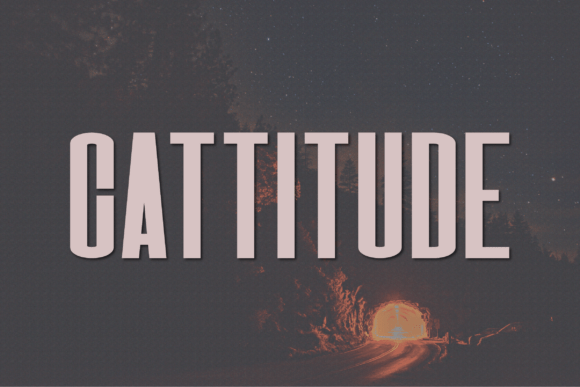
Cattitude Font: Elevate Your Design with a Modern, Classy Sans Serif Typeface
In the world of typography, fonts play a crucial role in conveying messages, expressing emotions, and creating visual identities. When it comes to choosing the right font for your design project, the options can be overwhelming. However, if you’re looking for a modern, classy sans serif typeface that exudes elegance and sophistication, look no further than Cattitude Font. In this article, we’ll introduce you to Cattitude, a versatile font that’s perfect for a wide range of design applications.
What is Cattitude Font?
Cattitude Font is a modern sans serif typeface that features upper characters, numbers 0-9, and a range of punctuation and symbols. Its clean lines, precise curves, and balanced proportions make it an ideal choice for designers seeking a font that’s both stylish and legible. Whether you’re working on a logo, wedding invitation, quote, advertisement, or magazine, Cattitude Font is the perfect companion to help you achieve your creative vision.
Key Features of Cattitude Font
- Modern Sans Serif Design: Cattitude Font boasts a sleek, contemporary design that’s perfect for projects that require a touch of sophistication.
- Upper Characters, Numbers, and Symbols: The font includes a comprehensive range of upper characters, numbers 0-9, and punctuation and symbols, making it versatile and practical.
- Legible and Readable: Cattitude Font is designed to be easy to read, even at small sizes, making it perfect for body text, headings, and titles.
- Highly Versatile: From logos and branding to weddings, invitations, quotes, and advertisements, Cattitude Font can be used in a wide range of design applications.
Use Cases for Cattitude Font
Cattitude Font is an extremely versatile font that can be used in various design projects. Here are some examples:
- Logos and Branding: Create a lasting impression with Cattitude Font, perfect for logos, business cards, and letterheads.
- Weddings and Invitations: Add a touch of elegance to your wedding invitations, programs, and thank-you cards with Cattitude Font.
- Quotes and Typography: Use Cattitude Font to create stunning typographic quotes, posters, and social media graphics.
- Advertisements and Marketing: Make your advertisements stand out with Cattitude Font, suitable for print, digital, and outdoor advertising.
- Magazines and Print: Cattitude Font is perfect for magazine titles, headings, and body text, ensuring a professional and polished look.
Why Choose Cattitude Font?
With so many fonts available, why choose Cattitude Font? Here are a few reasons:
- Unique and Distinctive: Cattitude Font offers a fresh and modern take on sans serif typography, setting it apart from more traditional fonts.
- Elegant and Sophisticated: The font’s clean lines and balanced proportions evoke a sense of elegance and sophistication, perfect for high-end designs.
- Easy to Read and Legible: Cattitude Font is designed to be easy to read, reducing eye strain and making it perfect for long-form content.
- Highly Versatile: With its wide range of characters, numbers, and symbols, Cattitude Font can be used in various design applications.
Tips for Using Cattitude Font
To get the most out of Cattitude Font, here are some tips:
- Experiment with Font Sizes: Cattitude Font looks great at various font sizes, from small body text to large headings.
- Play with Line Spacing: Adjust line spacing to create a sense of flow and harmony in your design.
- Mix and Match with Other Fonts: Combine Cattitude Font with other fonts to create visual interest and contrast.
- Pay Attention to Kerning: Adjust kerning to ensure that the font looks balanced and visually appealing.
In conclusion, Cattitude Font is a modern, classy sans serif typeface that’s perfect for designers seeking a versatile and elegant font. With its comprehensive range of characters, numbers, and symbols, Cattitude Font is suitable for a wide range of design applications, from logos and branding to weddings, invitations, quotes, and advertisements. Whether you’re a professional designer or a DIY enthusiast, Cattitude Font is an excellent choice for your next design project.